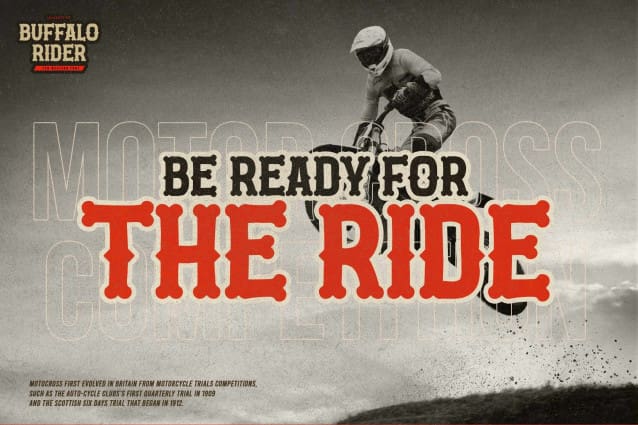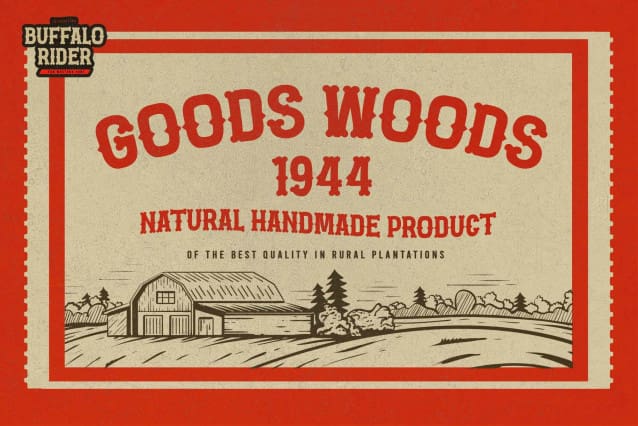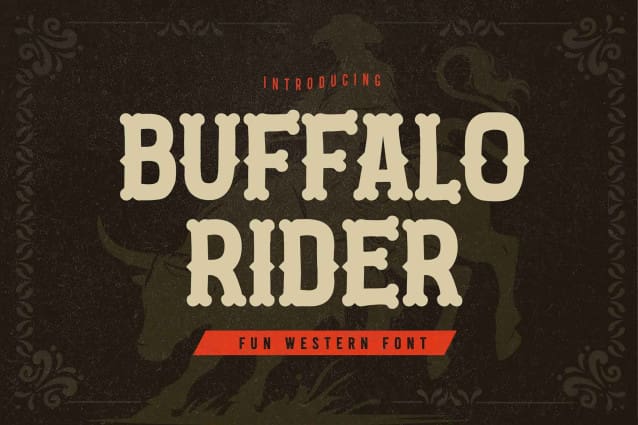
Buffalo Rider Font
Buffalo Rider Font is a bold, clean font that embodies the rugged spirit of the Wild West. With its natural, hand-crafted style and clear, dramatic movement, this font is perfect for making a strong statement in your designs.
Add the bold and authentic character of this Font to your next project and capture the essence of the cowboy and wild west spirit.